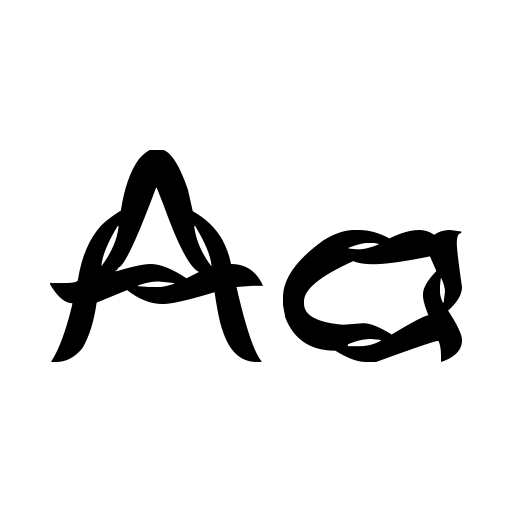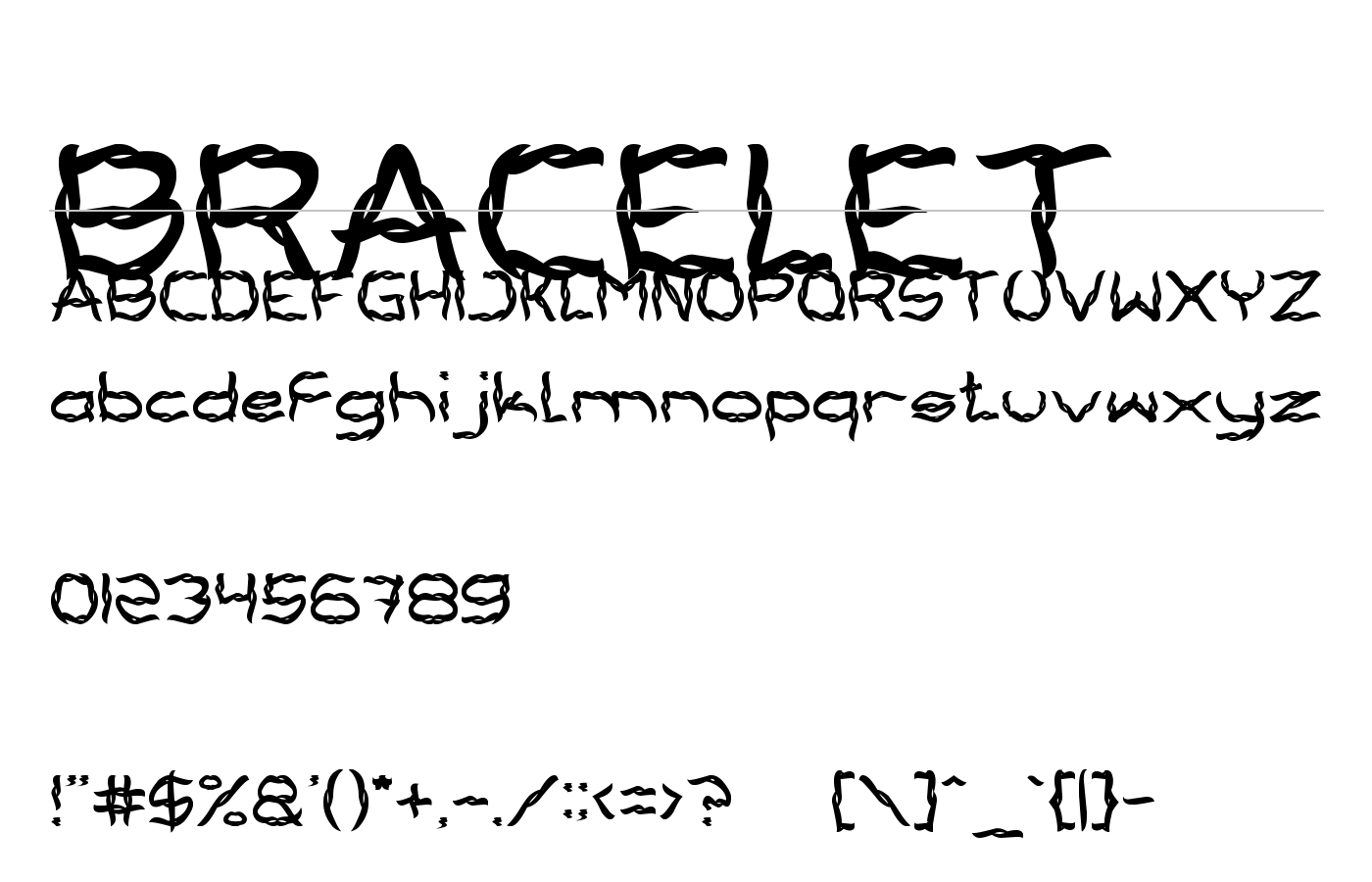
BRACELET is a unique, decorative handwritten font characterized by its irregular, brush-like strokes that create a lively and organic feel. Its uneven weight and quirky, twisted letterforms make it ideal for playful, artistic designs that require a bold, eye-catching look. This font works best in creative branding, posters, and informal contexts where a fun and unconventional style is desired.
BRACELET Font
About BRACELET Font